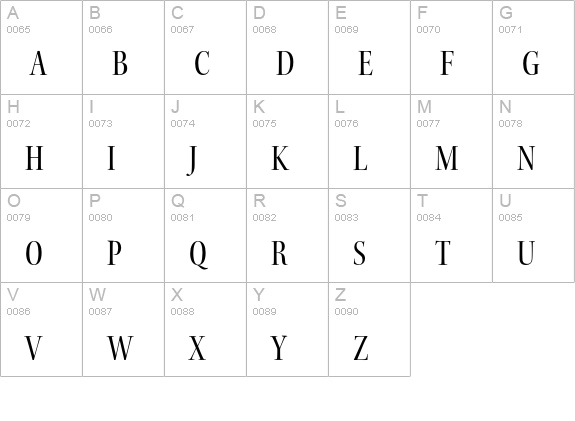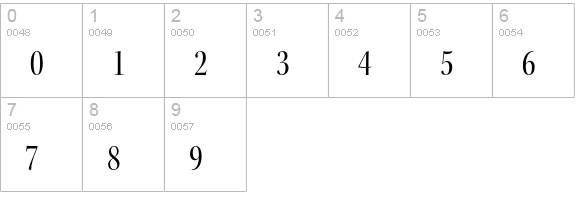
Kepler Std Condensed Display is a distinctive, condensed-width variant in the Kepler typeface family \xE2\x80\x94 well suited to design and typography projects.
Introducing Kepler Std Condensed Display, a visually striking and highly versatile font that is sure to make a bold statement in any design project. This condensed display font exudes a sense of modernity and sophistication, with its sleek lines and sharp edges. Designed with meticulous attention to detail, Kepler Std Condensed Display offers a unique blend of elegance and readability. Its condensed form allows for maximum impact in limited space, making it ideal for headlines, titles, and other eye-catching elements. The clean and minimalist aesthetic of Kepler Std Condensed Display lends itself well to a wide range of design applications. Whether you're working on a website, a poster, a brochure, or any other creative project, this font will elevate your design to new heights. But what sets Kepler Std Condensed Display apart is not just its stunning appearance - it's also the fact that it is freely available to download at FontsMarket.com. Yes, you read that right. You can now access this exceptional font without having to spend a dime. So why wait? Download Kepler Std Condensed Display today and experience the power of free, high-quality typography. With this font in your toolkit, your designs will never be the same again.